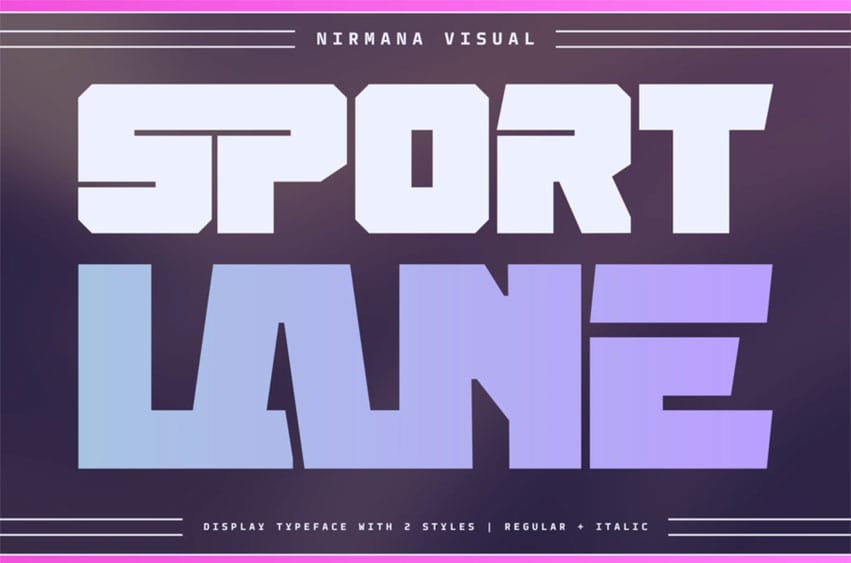
Sport Lane Font offers beautiful typographic harmony across a diverse range of design projects, including logos & branding, social media posts, advertisements & product designs.